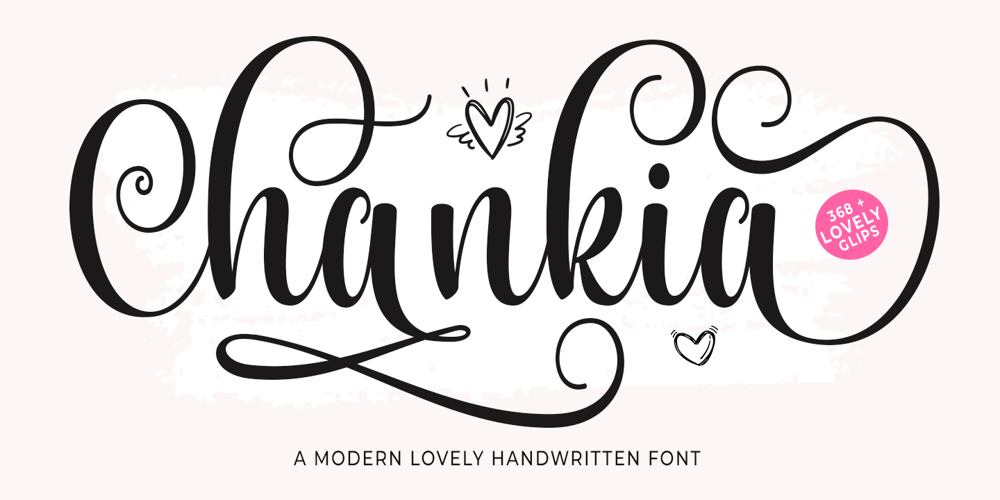
Chankia Font Family was designed by Ikhsan Maulana and published by IM Studio. Chankia contains 1 styles and family package options. Chankia a stylish and incredibly elegant handwritten font. It looks stunning on wedding invitations, thank you cards, quotes, greeting cards, logos, business cards, and every other design which needs a handwritten touch.This font is PUA encoded which means you can access all of the glyphs and alternates with ease!